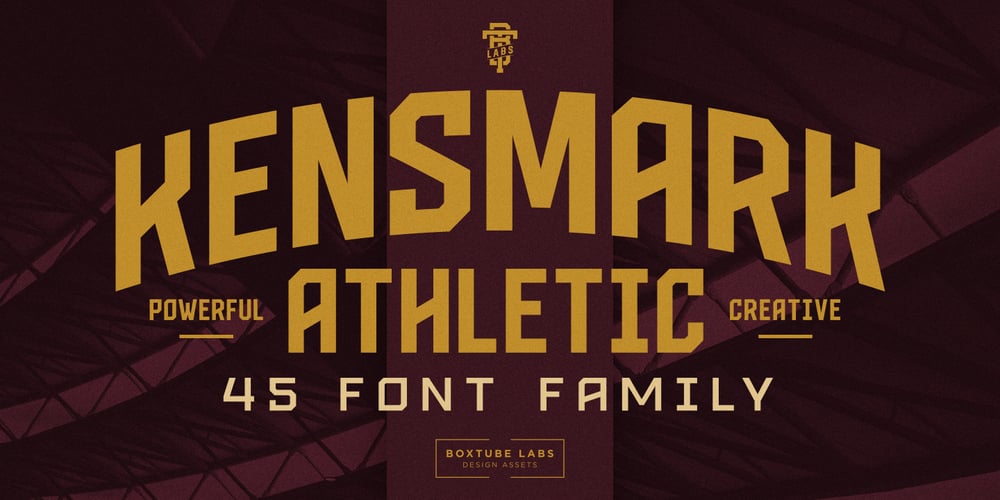
Kensmark Font Family was designed by Tobias Alexandersson and published by BoxTube Labs. Kensmark contains 45 styles and family package options. “A kensmark is any feature or characteristic that makes someone or something instantly recognizable.”Kensmark is a powerful and creative type family with a staggering 45 fonts. Thanks to a wide array of widths and weights it’s incredibly versatile and flexible. It’s perfect for logotypes, sports branding, posters, apparel design, magazine headlines, labels and so much more.This is by far our most comprehensive font project to date. We are very excited to finally have it released and look forward to see it in action. Caps only fonts.